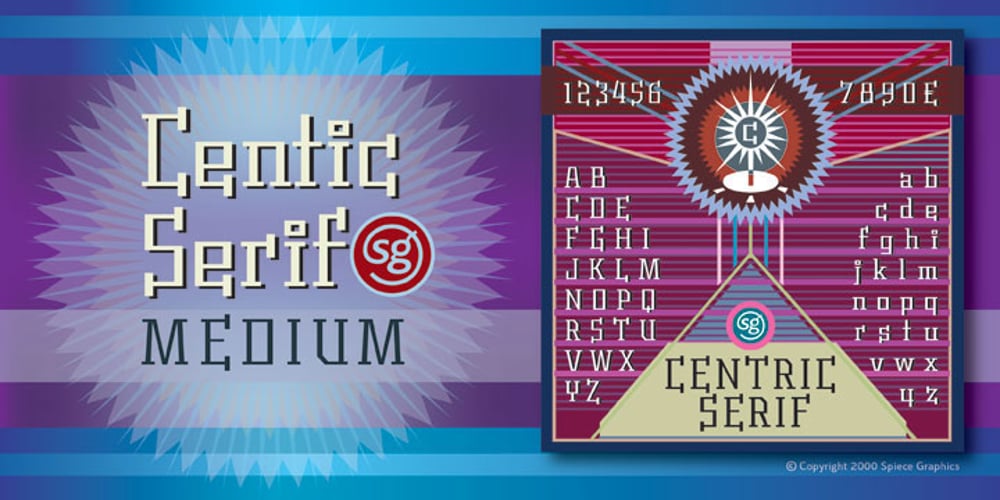
Centric Serif SG
Centric Serif SG font
Centric Serif SG Font Family was designed by Jim Spiece and published by Spiece Graphics. Centric Serif SG contains 1 styles and family package options. Here is a boxy, extremely squared alternative to display designs like Eden or Glamour. In comparison, Centric Serif does not share the fragile and delicate nature of these old 1930s classics. Instead it is fairly robust with a splayed M and a simple flattop A. It is interesting to note that Centric Serif (unlike Centric Geo) sports serifs in exaggerated and curiously bizarre ways. Centric Serif is now available in the OpenType Std format. Some new stylistic alternates and historical forms have been added to this OpenType version. Advanced features work in current versions of Adobe Creative Suite InDesign, Creative Suite Illustrator, and Quark XPress. Check for OpenType advanced feature support in other applications as it gradually becomes available with upgrades.